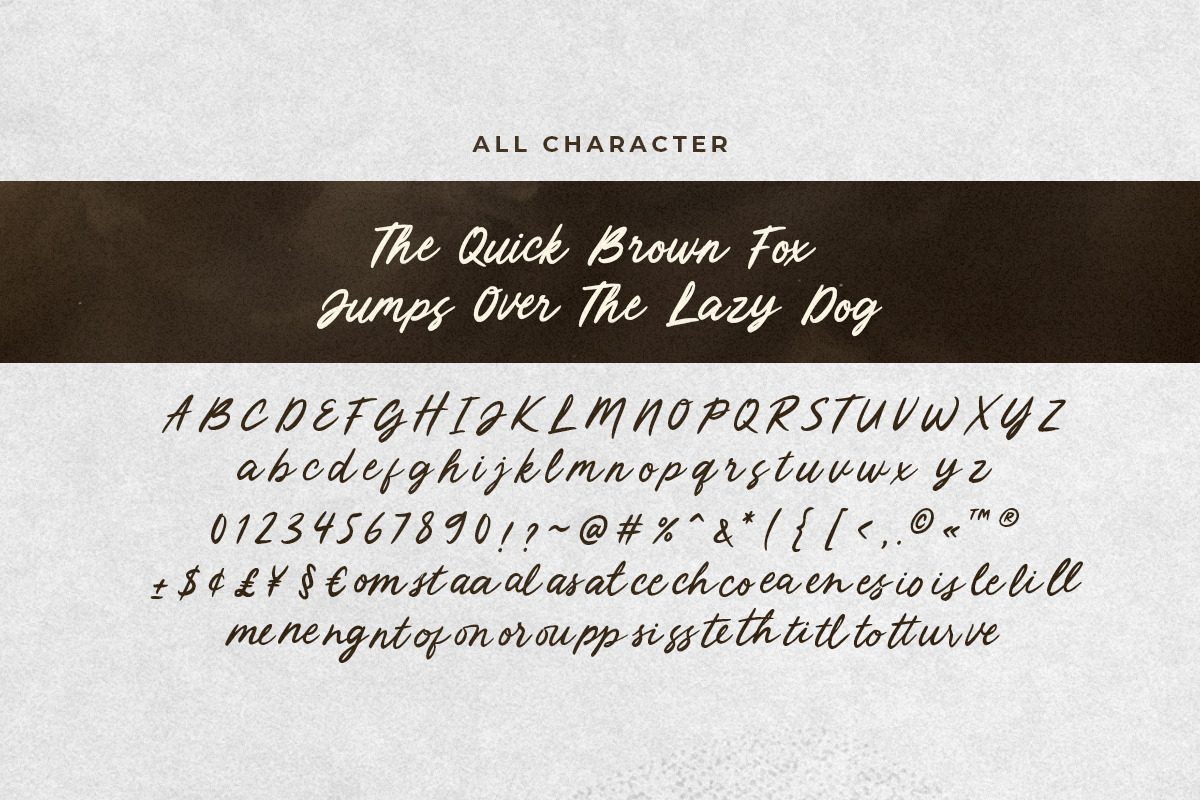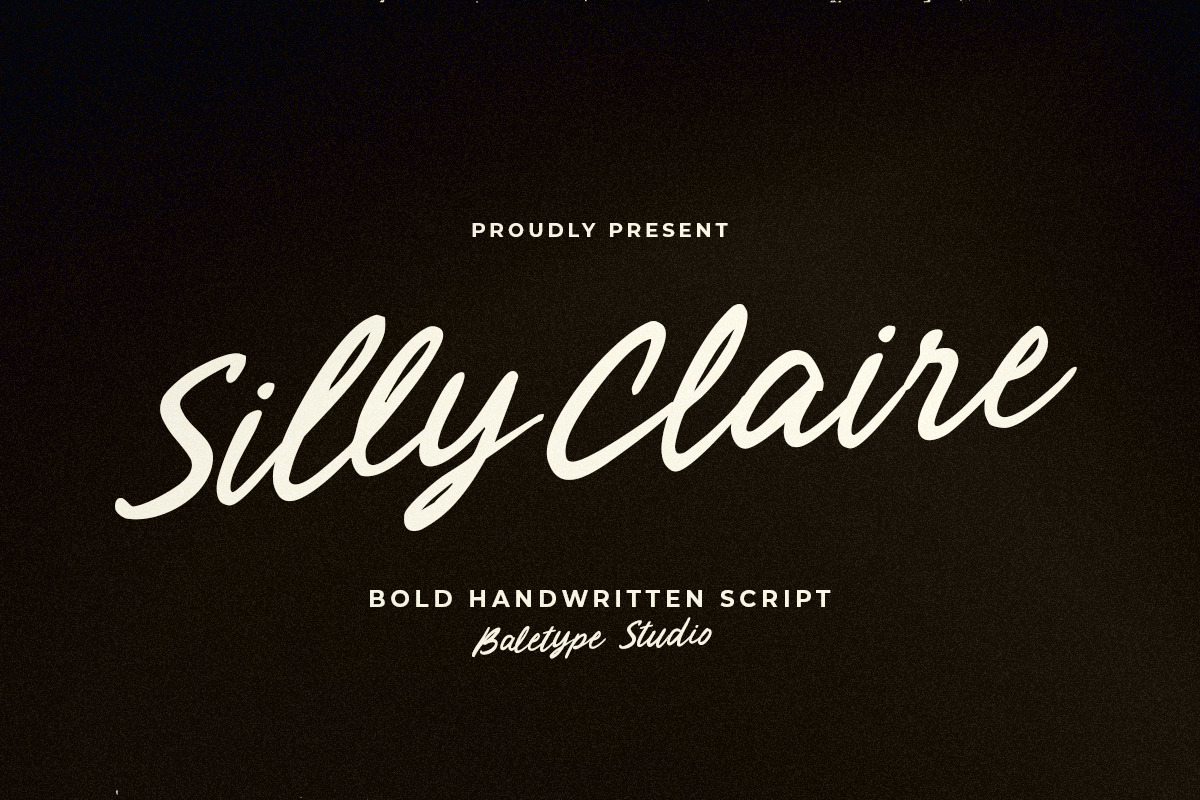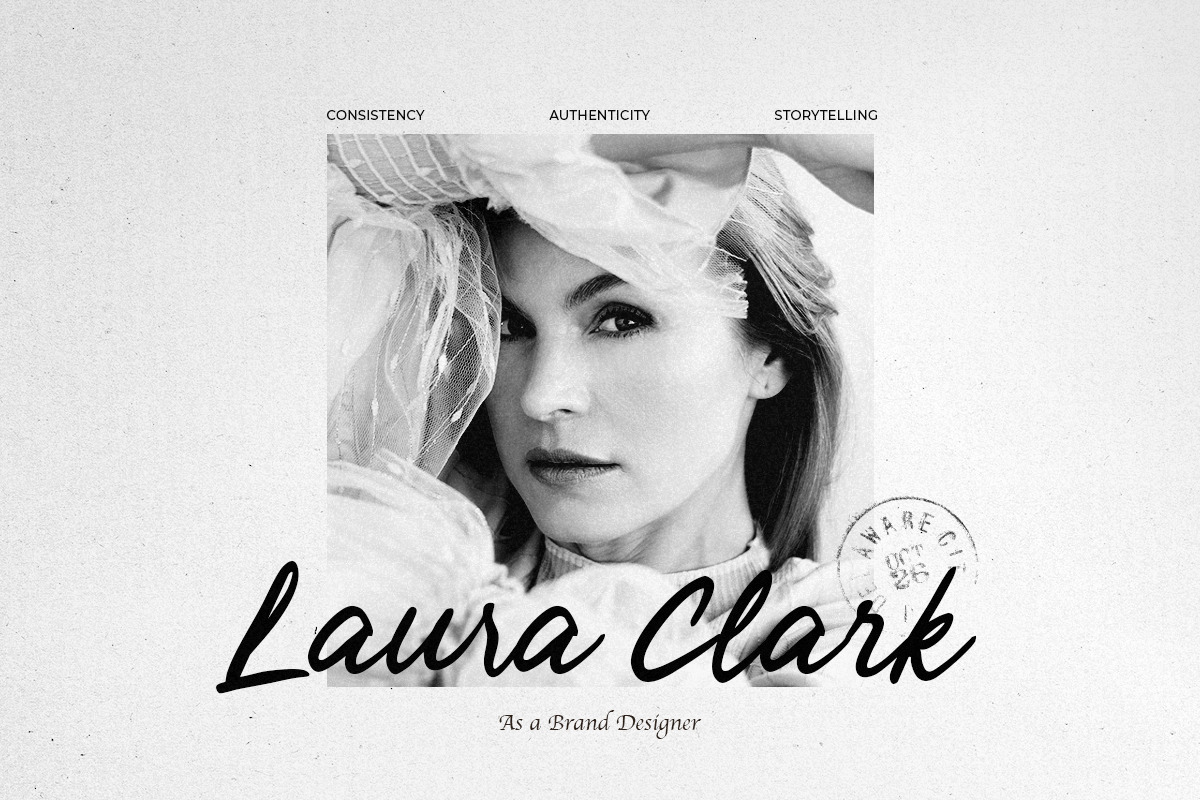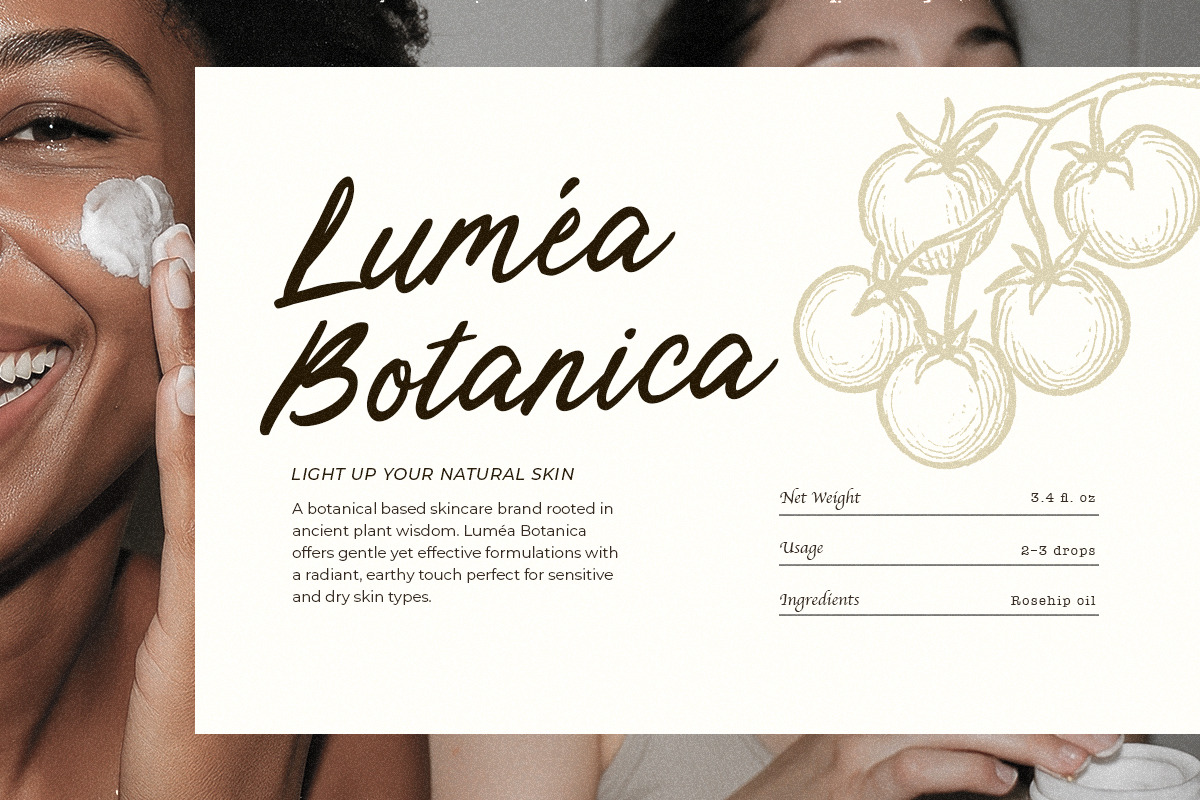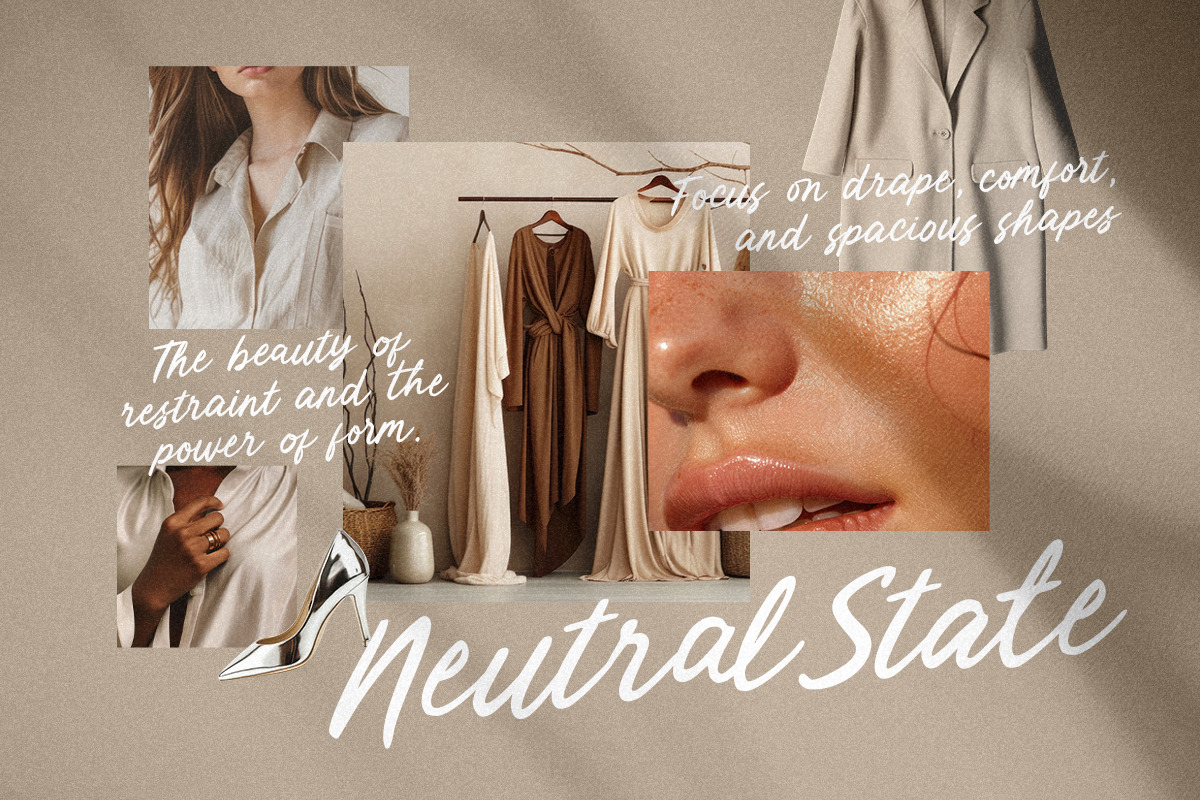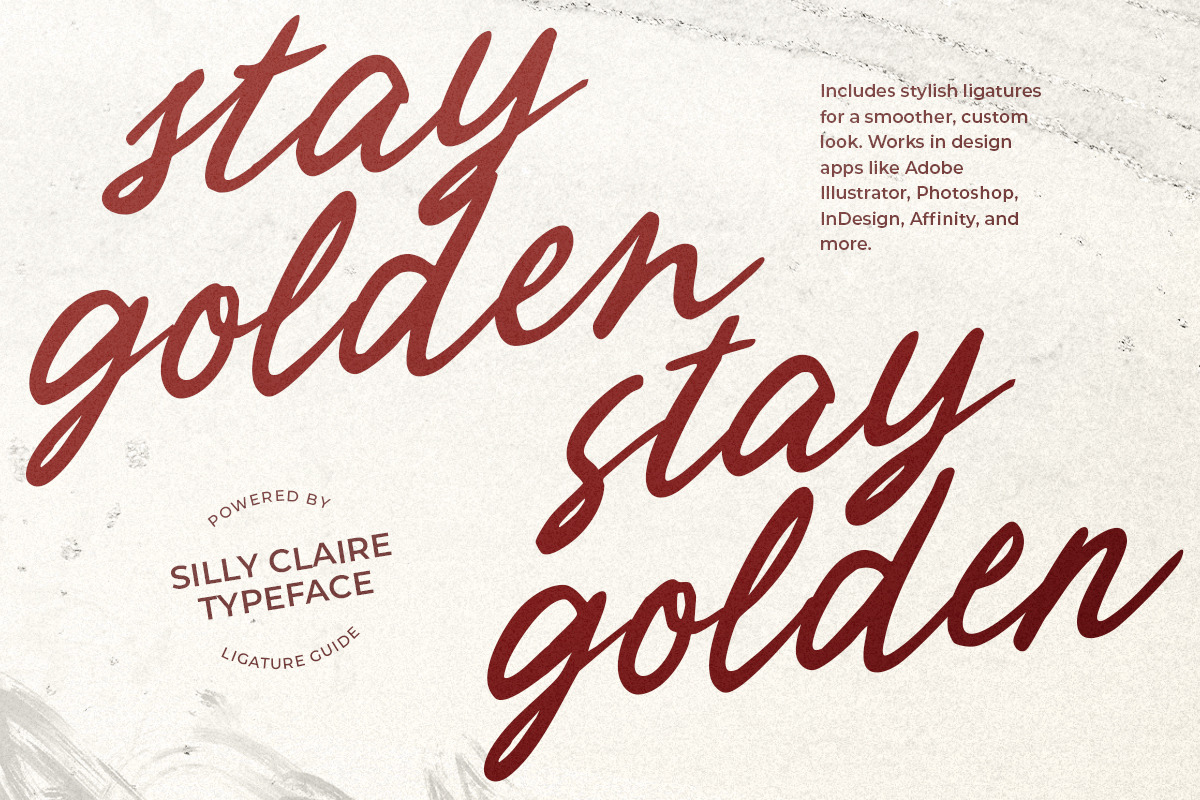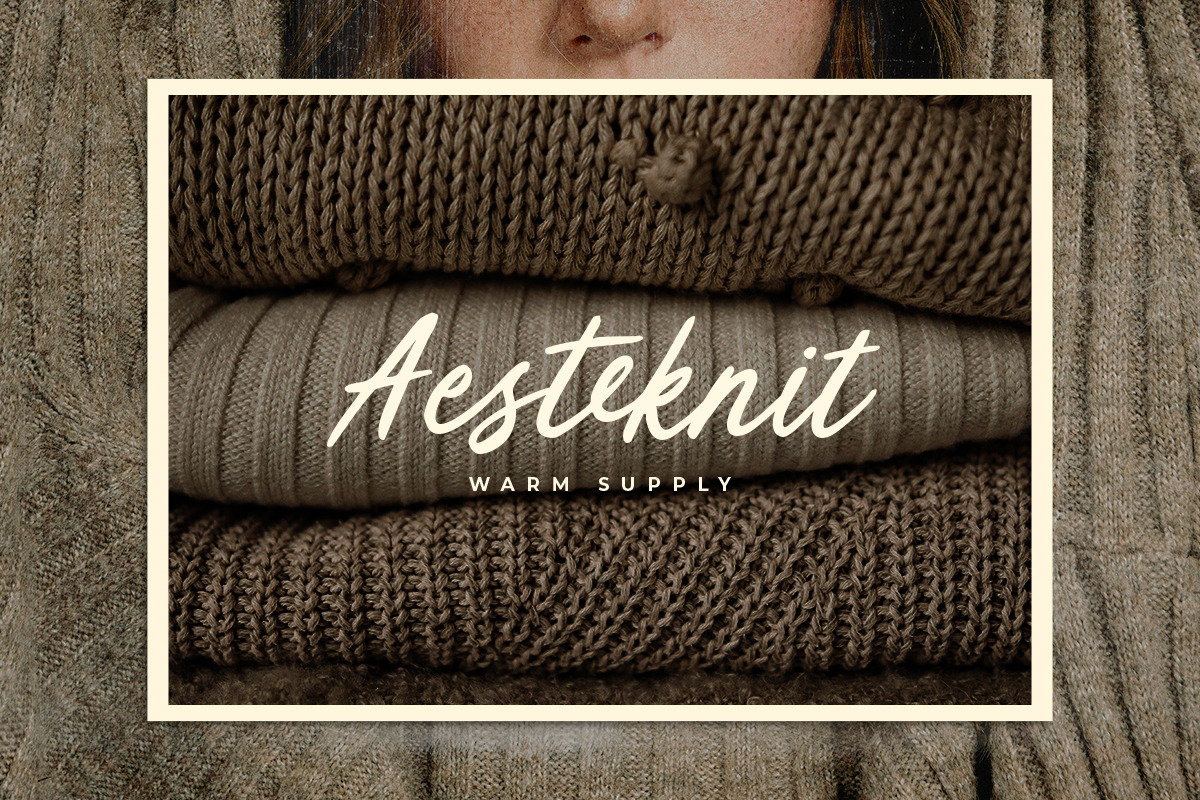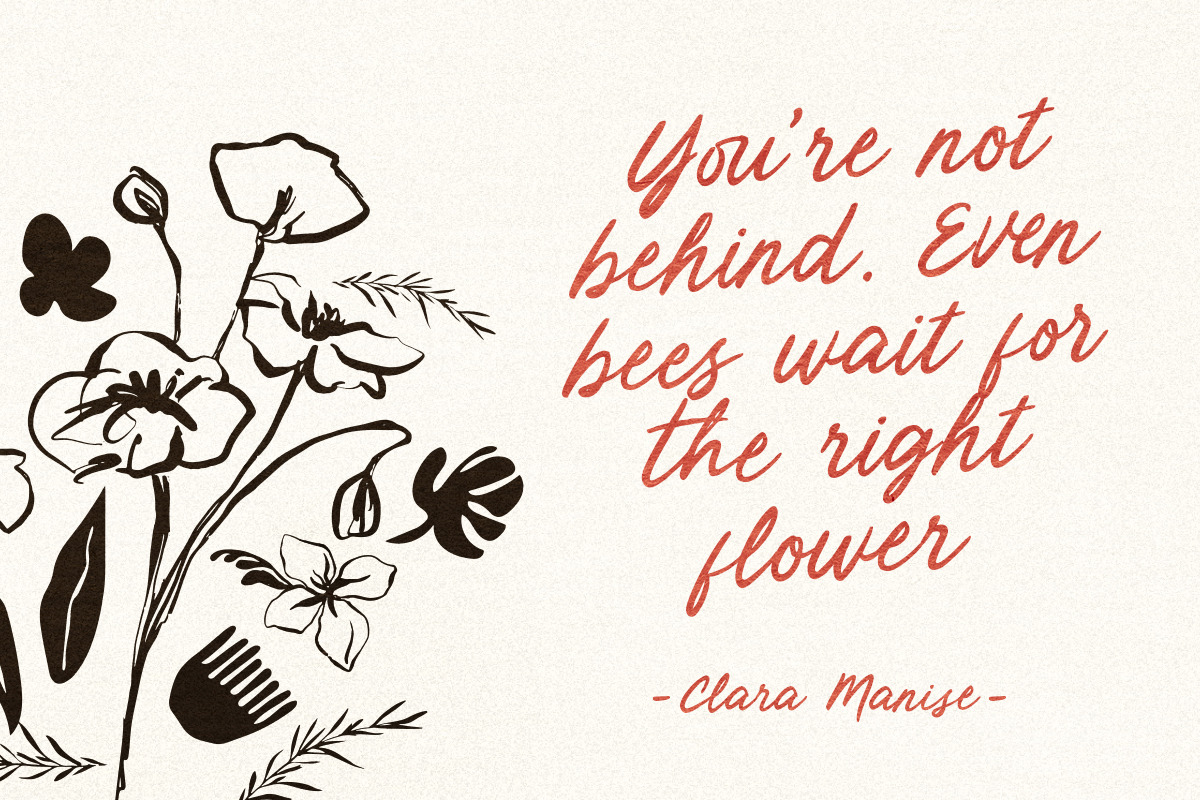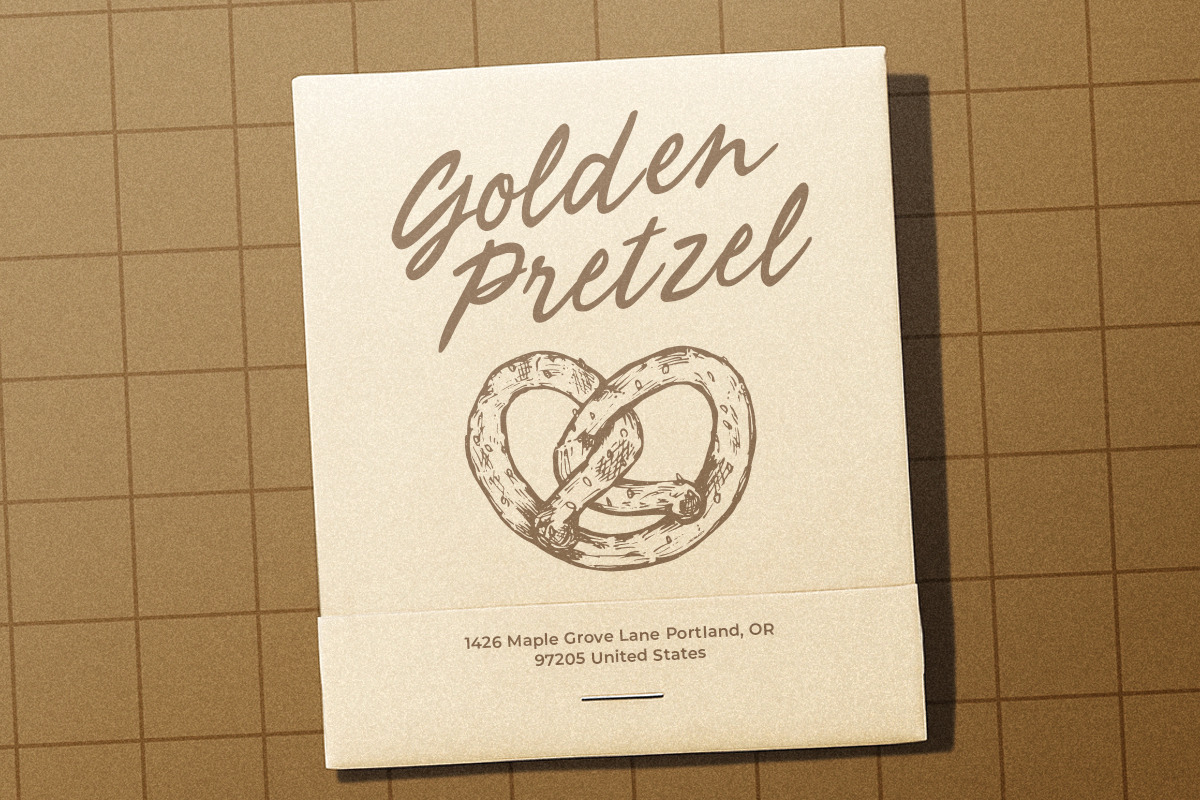
Silly Claire - Bold Handwritten
Silly Claire is a bold script with ligatures that will make it more looks naturally handwritten. You can use this font for any purposes such as quotes, branding, wedding invitations or logotype. This font also support multi language.